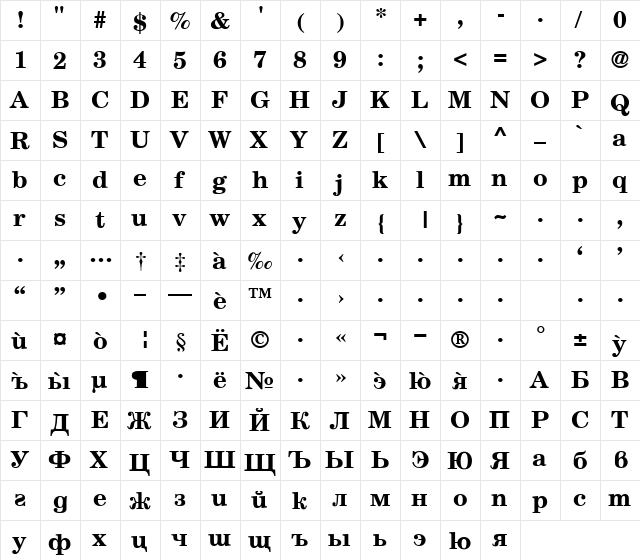
NewSaturionModernCyr Bold
Design Context for NewSaturionModernCyr Typeface
NewSaturionModernCyr is a composed and adaptable typeface that performs quietly and consistently across a wide range of design contexts. Its bold stroke weight gives it real presence on the page.